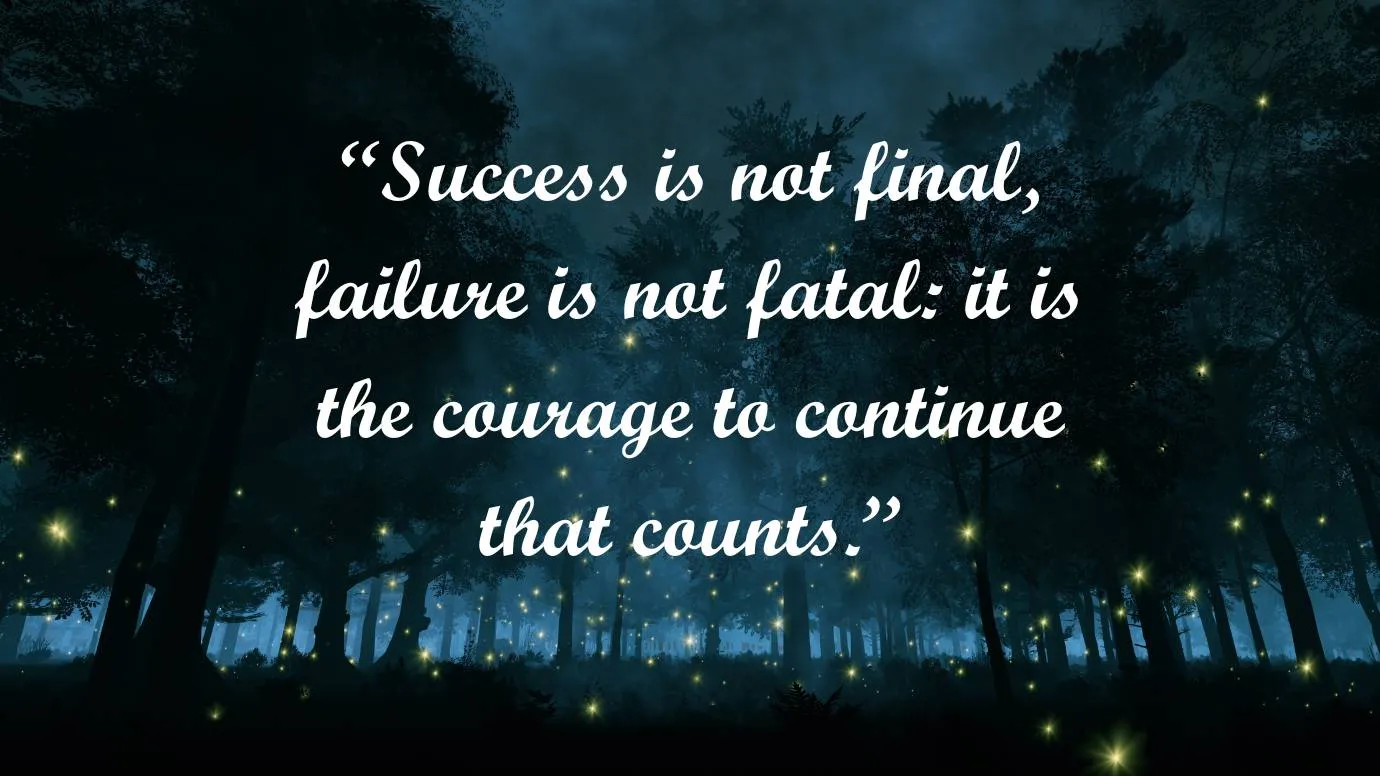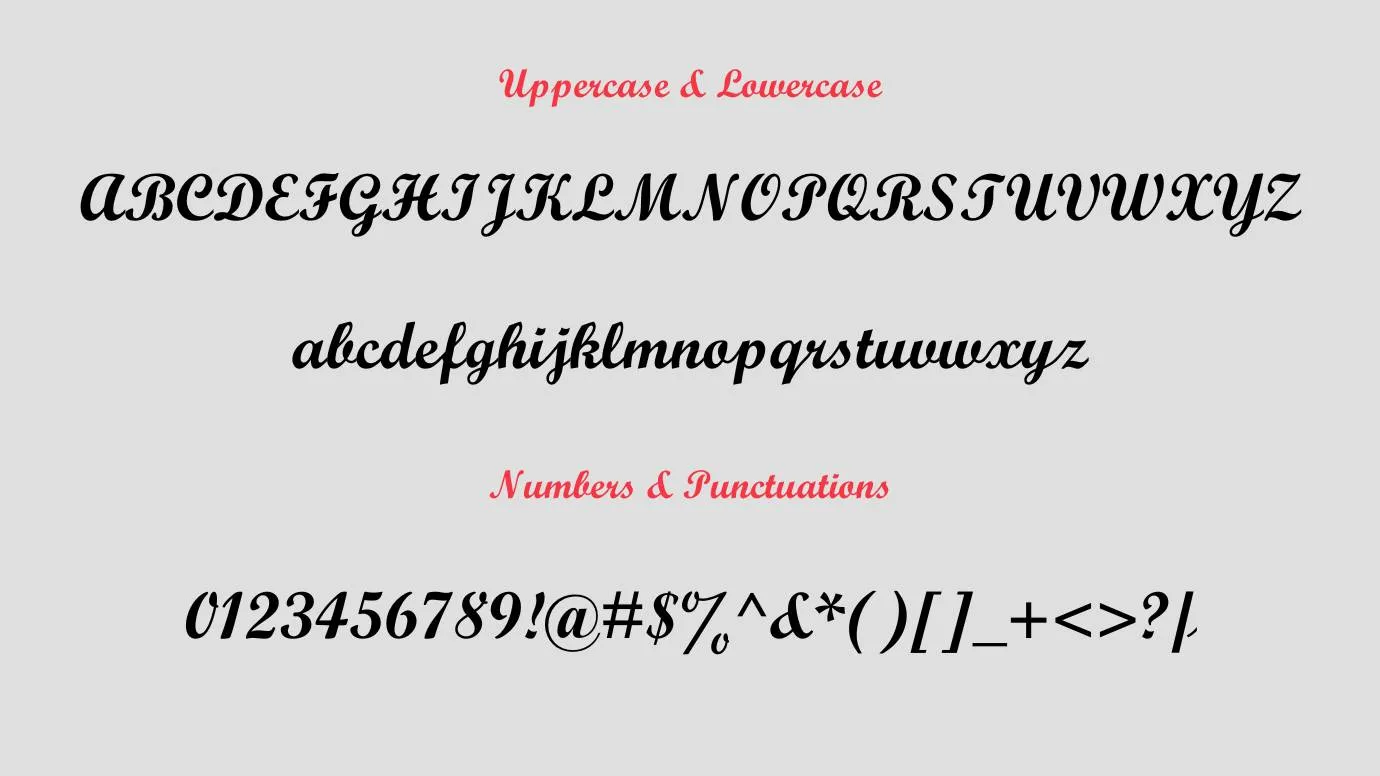
The Script mt Standard Font contains both upper- and lower-case letters, numbers, and some punctuation marks.  The text style is flawless as long as each design demands a fun and unusual feel.
There are a variety of ways to use this script style to make the project unique. The typeface often utilized by creators to generate their designs looks lovely. Because the look is extremely amazing. With the generator tool facility, you can make attractive designs for the project.
Script designs and thin corners can be created with this stunning piece. The designs are very stylish of this font. It comes in a unique weight, making it suitable for a variety of designs.
Also, its unique text style makes it a good choice for script typefaces. The typeface is a great choice if you’re searching for a unique design that will bring some humor or delight to your task.
It is extensively utilized to create beautiful backgrounds. It is a stunning typeface that is appropriate for many high-quality card designs. There are a lot of corporations that use this typeface. Various institutions have used this font to create their logos. The typeface has two formats OFT and TTF.
How to Use Script mt Standard Font effectively?
A lot of web designers used this attractive typeface for many projects, including in fashion magazines, newspapers, ads, and articles. Whether you are designing captions, logos, or other display items, the font will serve you well. Amazone bt font is a nice and amazing combination with Script mt Standard Font to make attractive designs.
Your design can stand out through this font in a variety of ways. My opinion is that it is beneficial for branding, stickers, graphics on t-shirts, and print materials. It can be created through an online generator tool.
This typeface can be used for a wide range of projects, including eBooks, posters, banners, brochure layouts, and much more. Marketing designs, posters, and logos should use this beautiful typeface.
Script mt Standard Font
It is a suitable style for creating designs in Canva such as labeling, emojis, symbols, writing materials, industry cards, signage, advertising material, flyers, and invitation cards. Posters and banners can be designed beautifully, due to their advanced and brilliant features, it can be used for a variety of purposes.
Where to use Script mt Standard typeface?
This typeface can be used for a wide range of projects, including eBooks, posters, banners, brochure layouts, and much more. Marketing designs, posters, and logos should use this beautiful typeface.